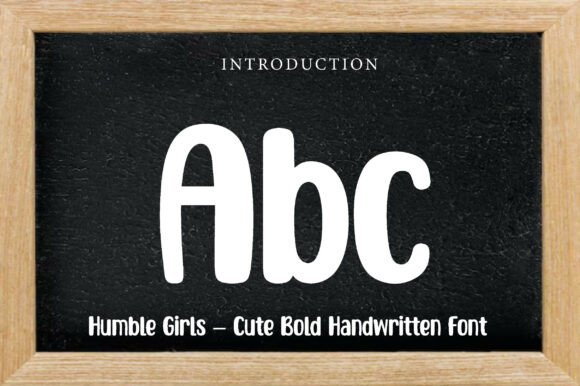
Introduction to Humble Girls Font
Keep it real with Humble Girls, a friendly and approachable handwritten font that captures a “relatable-and-spirited” soul.
This typeface features tall, bold letterforms characterized by rhythmic, organic imperfections that mimic a quick felt-tip marker on a chalkboard With its solid structural weight and unpretentious personality, Humble Girls is the premier choice for independent lifestyle blogging, quirky classroom materials, casual cafe signage, and high-impact “authentic-and-expressive” social media headers.
Key Features of Humble Girls Font